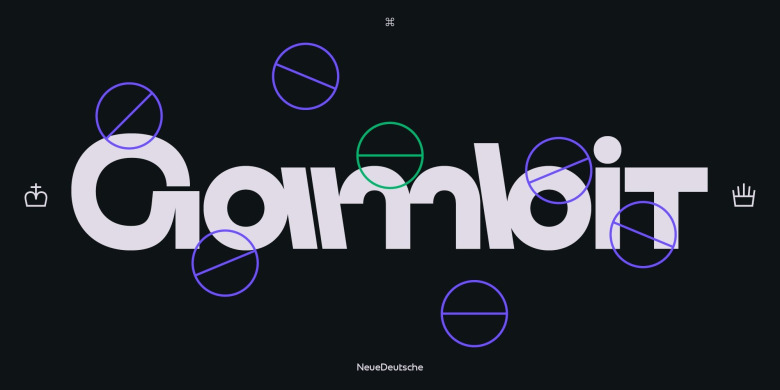
Gambit Font
Gambit Font is a sans serif typeface that is designed with a unique feel and looks stunning. It comes in 9 weights. Watch out, the regular weight is free of charge, so you can use it to your heart’s content. Each weight includes extended language support (Latin + Cyrillic + Greek), arrows, fractions, old-style figures, ligatures, and more. It is perfectly suited for graphic design and will work for web, corporate as well as for editorial design.